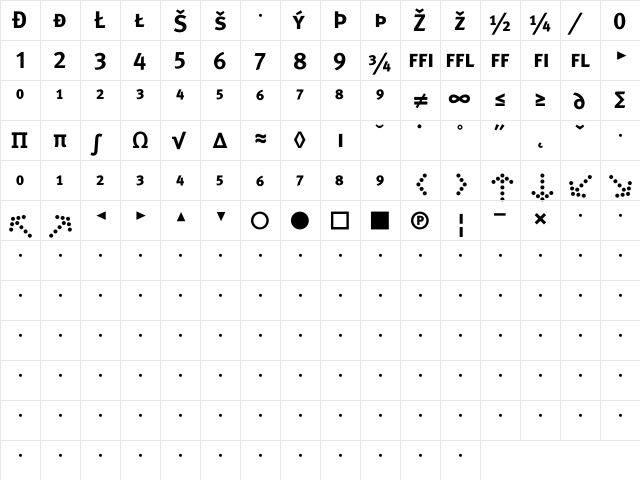
Meta Bold Caps Exp
Design Context for Meta Typeface
Meta offers clean, dependable letterforms without strong stylistic allegiance, making it a practical choice for designers who need flexibility. The heavy weight commands attention and anchors typographic hierarchies.